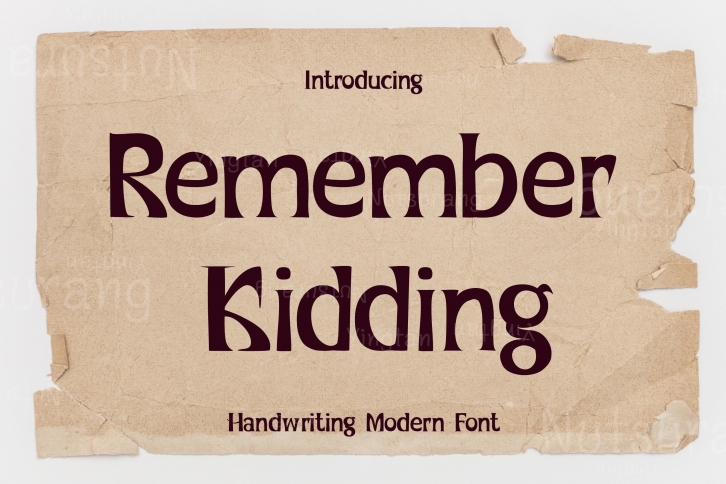
Remember Kidding is a fresh and natural handwritten font. No matter the topic, this font will be an incredible asset to your fonts’ library, as it has the potential to elevate any creation.